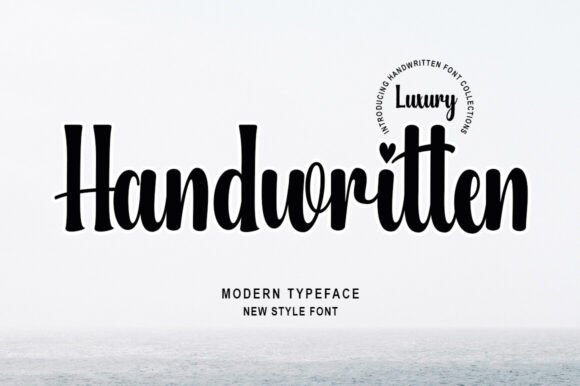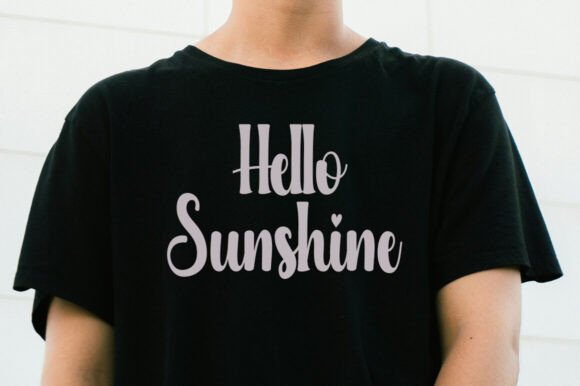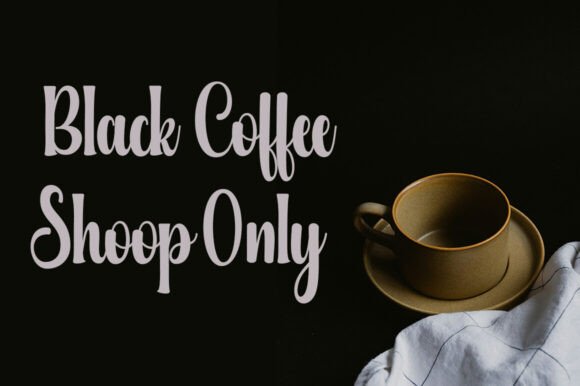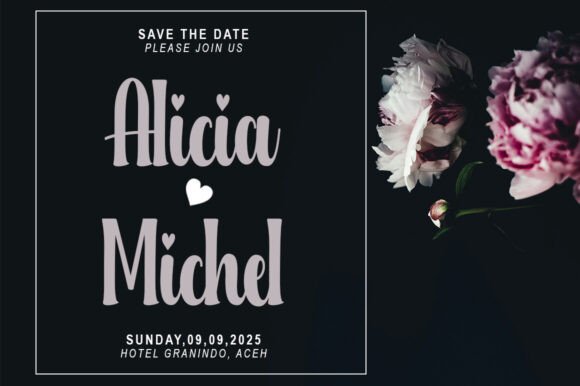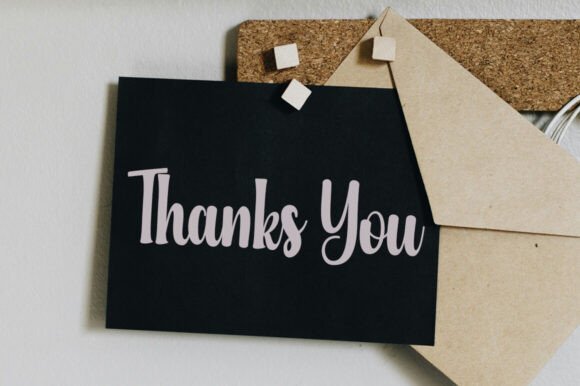
The Art of Personal Touch in Design
Have you ever found yourself scribbling notes in a coffee shop, or jotting down ideas in a worn notebook? Those moments of spontaneous creativity can be the spark that sets your design project ablaze. As designers, we’re constantly seeking ways to infuse our work with a personal touch, something that sets it apart from the ordinary.
Enter Handwritten Font, a stylish and elegant font that captures the essence of timeless classic calligraphy. This beautiful font is designed to add a touch of sophistication and class to any design project, from branding and advertising to editorial and packaging.
For designers, Handwritten Font is a valuable tool that can elevate their work to new heights. Its versatility and impeccable form make it a perfect choice for a wide range of projects, from fine art to commercial design.
Key Features of Handwritten Font
- Unique Characteristics: The handwritten font features organic, flowing lines and subtle imperfections, giving it a personal and human touch.
Handwritten Font Review
Overall, I’m a fan of the Handwritten Font, but as with any font, it has its strengths and weaknesses. Here’s what I think works well:
- ✨ Unique character: The Handwritten Font has a distinctive, personal touch that sets it apart from more generic fonts.
- ✨ Versatility: It’s suitable for a wide range of applications, from invitations and posters to social media graphics and web design.
- ✨ Expressive: The font’s varied letterforms and subtle imperfections give it a charming, handwritten feel.
- ⚠️ Readability: In smaller sizes or at a distance, the font can be difficult to read due to its complex letterforms and subtle variations.
- ⚠️ Consistency: While the font’s imperfections are charming, they can also make it challenging to maintain consistency across different text blocks or elements.
Overall, I think the Handwritten Font is a great choice for designers who want to add a touch of personality to their projects. Just be mindful of its limitations and use it thoughtfully to get the best results.
Practical Application Guide for Handwritten Font
Handwritten fonts are ideal for:
- Invitations and event graphics
- Quotes and motivational graphics
- Personalized gifts and stationery
Tips for Getting the Most Out of Handwritten Fonts
Use handwritten fonts to add a personal touch to your content. Experiment with different fonts and effects to find the perfect combination. Use them sparingly to create emphasis or add visual interest to your design.
Alternatives to Handwritten Font for Designers
1. Brush Script
Brush Script is a elegant and flowing font that mimics hand-drawn brushstrokes. It is ideal for use in titles, headings, and invitations where a touch of sophistication and elegance is required.
Compared to Handwritten Font, Brush Script has a more refined and polished look, making it suitable for formal events and high-end branding.